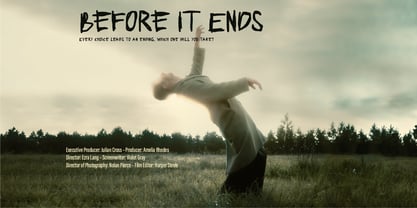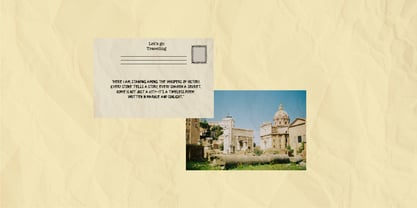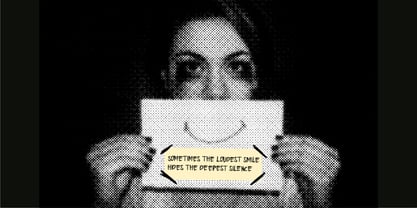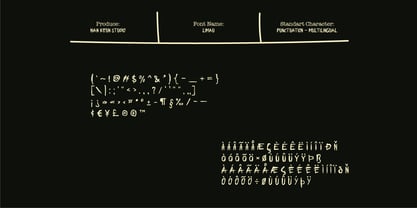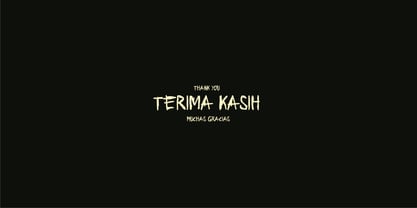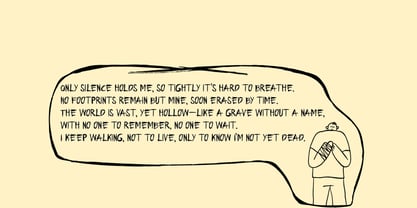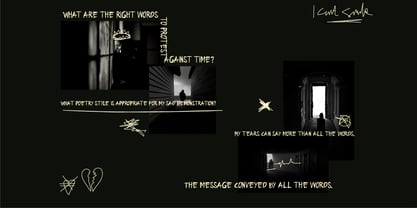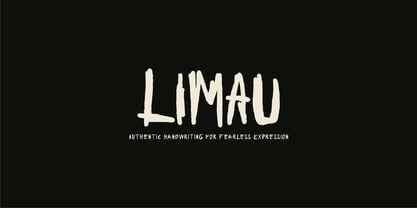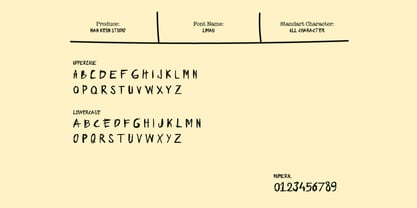
Limau
by Nian Keun Studio
The Limau Font Family was designed by Mugi Raharjo and published by Nian Keun Studio. Limau contains 1 styles.
Limau is a raw and expressive handwritten font that captures the essence of unapologetic individuality. With uneven strokes and wild character shapes, this typeface feels like a rebellion written on paper — rough, loud, and authentic.
Limau is made for those who dare to speak out through design. Its scratchy, jagged texture is perfect for projects that seek to evoke emotion, personal struggle, or bold self-expression. Whether you're designing posters, zines, apparel, or album art, Limau brings intensity and soul to every word.
Font Features
* Authentic handwritten style
* Gritty, rough, and textured strokes
* Uppercase characters only
* High-impact and expressive
* Organic, rebellious feel
Perfect For
* Music posters & album covers
* Protest visuals or zines
* Editorial & independent media
* Mental health and awareness campaigns
Designers: Mugi Raharjo
Publisher: Nian Keun Studio
Foundry: Nian Keun Studio
Design Owner: Nian Keun Studio